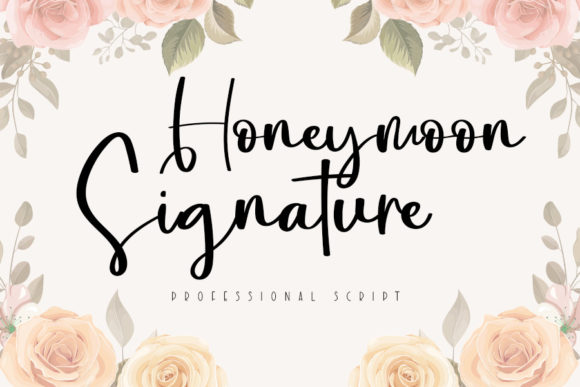
Journey into the realm of elegance and sophistication with Honeymoon Signature Font, a handcrafted masterpiece that weaves a tale of timeless beauty. Surrender to the allure of its exquisite curves, each stroke a testament to the passion and artistry that went into its creation. Honeymoon Signature Font belongs to the illustrious script font family, renowned for its ability to fuse classic grace with a modern twist.
Unleash your creativity and embark on a voyage of artistic expression with Honeymoon Signature Font. Its meticulously crafted characters dance across the page, embodying the essence of romance and charm. Whether you're designing simple logos, crafting heartfelt invitations, or adding a touch of magic to your social media posts, Honeymoon Signature Font will elevate your projects to new heights.
Immerse yourself in the world of Honeymoon Signature Font and discover a font that speaks to your soul. Its versatility knows no bounds, effortlessly adapting to a myriad of design endeavors. From elegant wedding stationery to whimsical branding materials, Honeymoon Signature Font possesses the power to transform your vision into a captivating reality.
Indulge in the sheer joy of using Honeymoon Signature Font, a font that will ignite your imagination and leave a lasting impression on your audience. Its timeless appeal ensures that your creations will stand the test of time, radiating an aura of sophistication that is both captivating and unforgettable.
With Honeymoon Signature Font, you hold the key to unlocking a world of creative possibilities. Its enchanting aura will captivate your audience, leaving them spellbound by the sheer beauty of your designs. Experience the transformative power of Honeymoon Signature Font today and embark on a creative journey like no other.